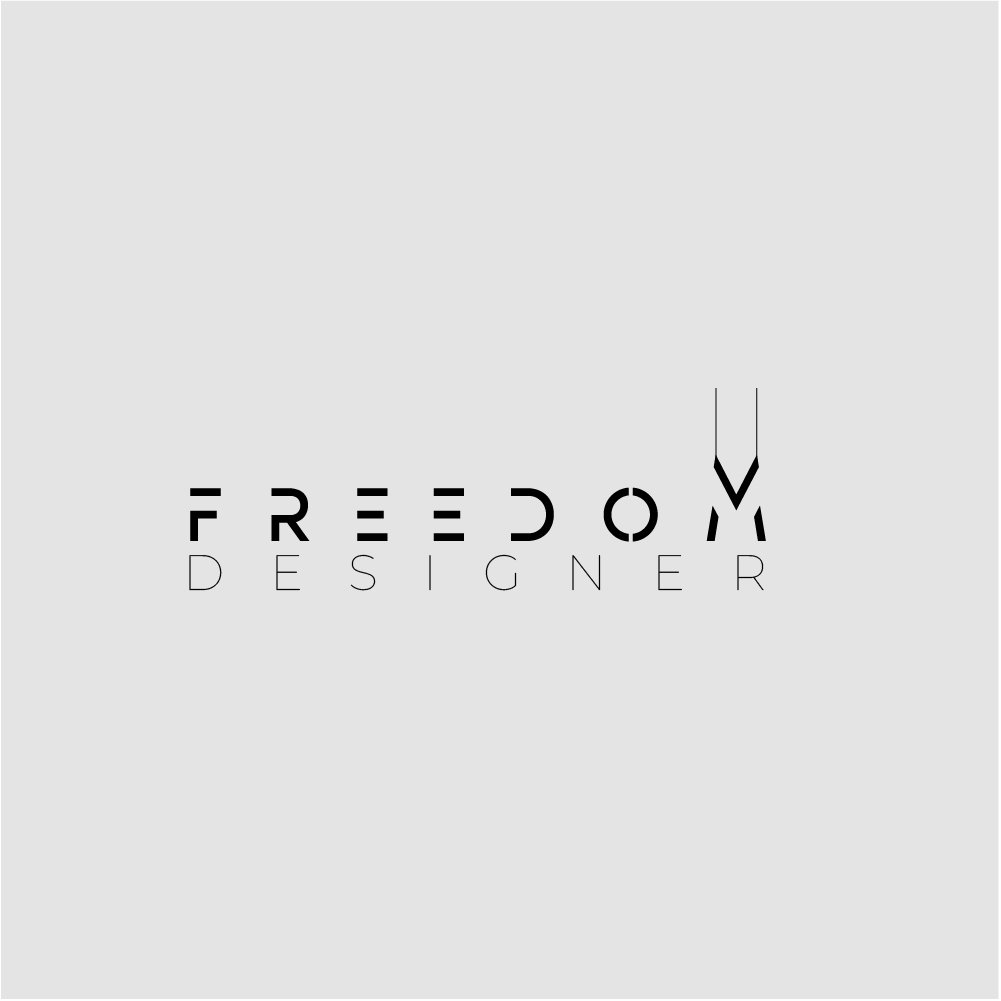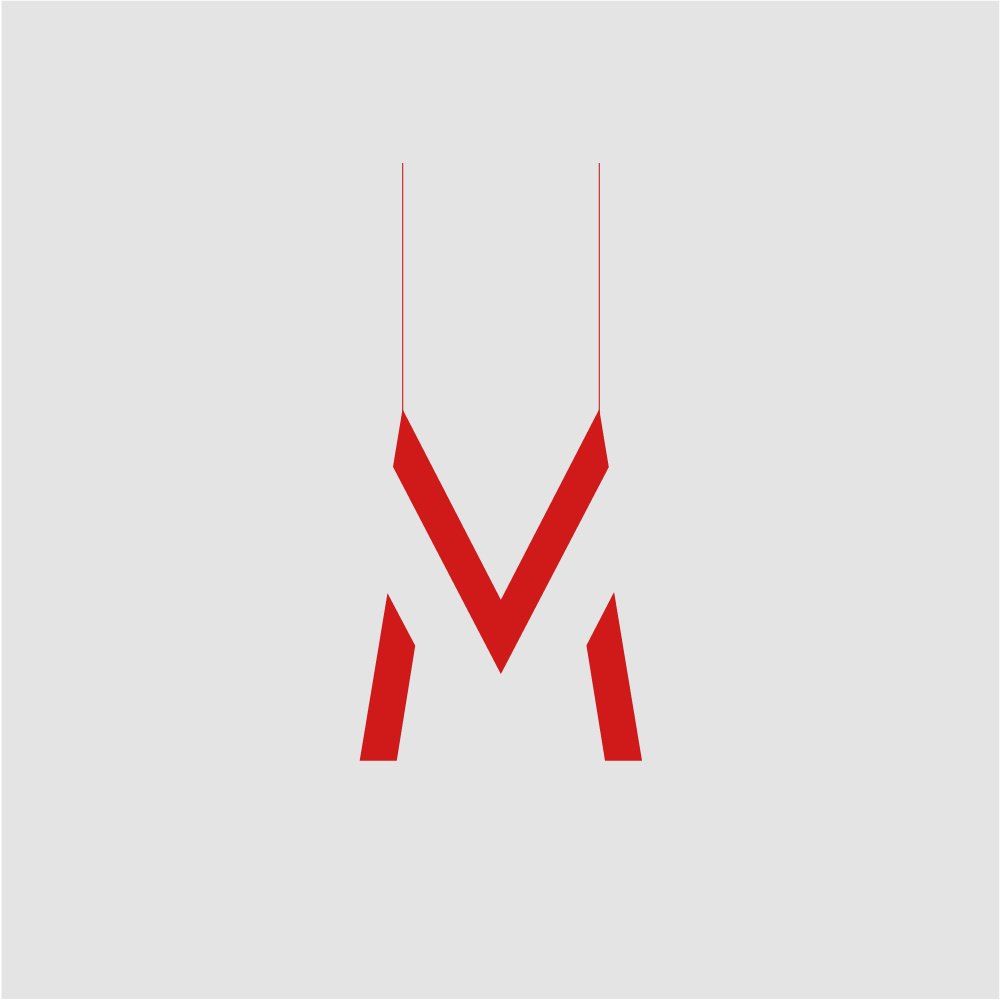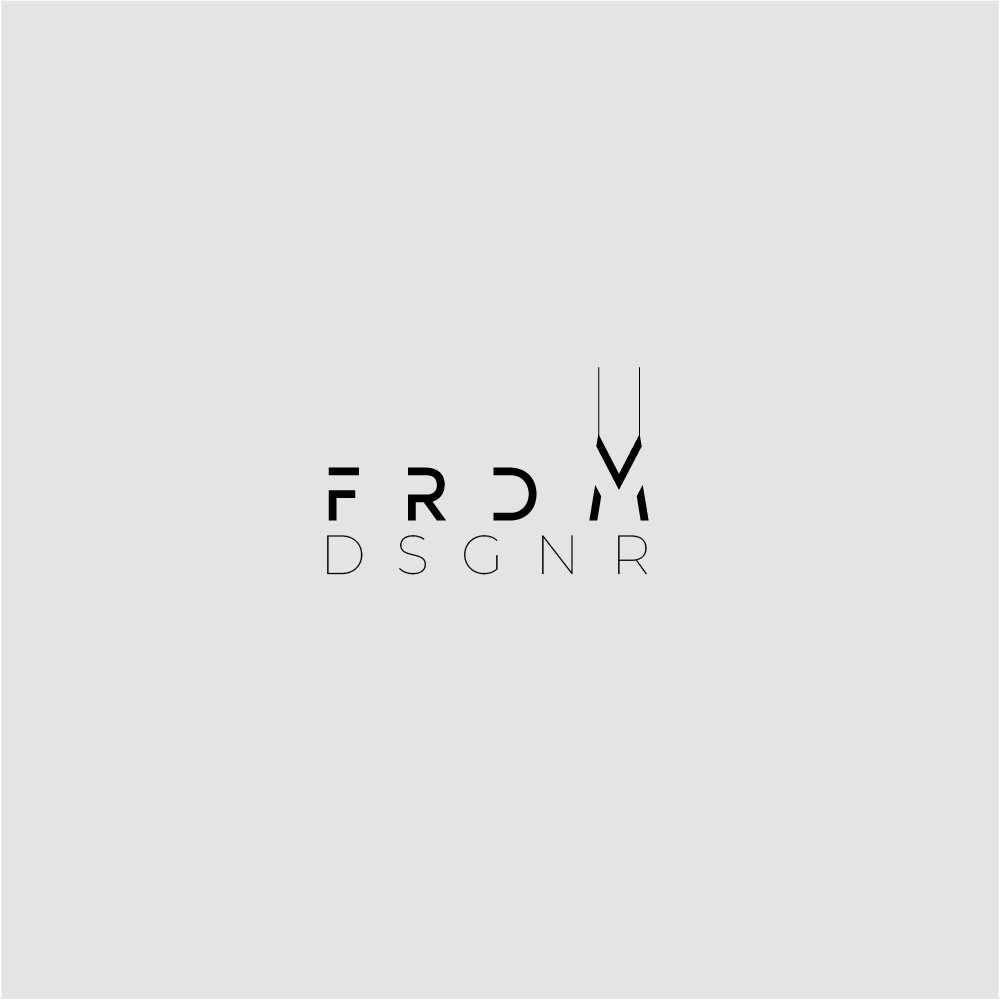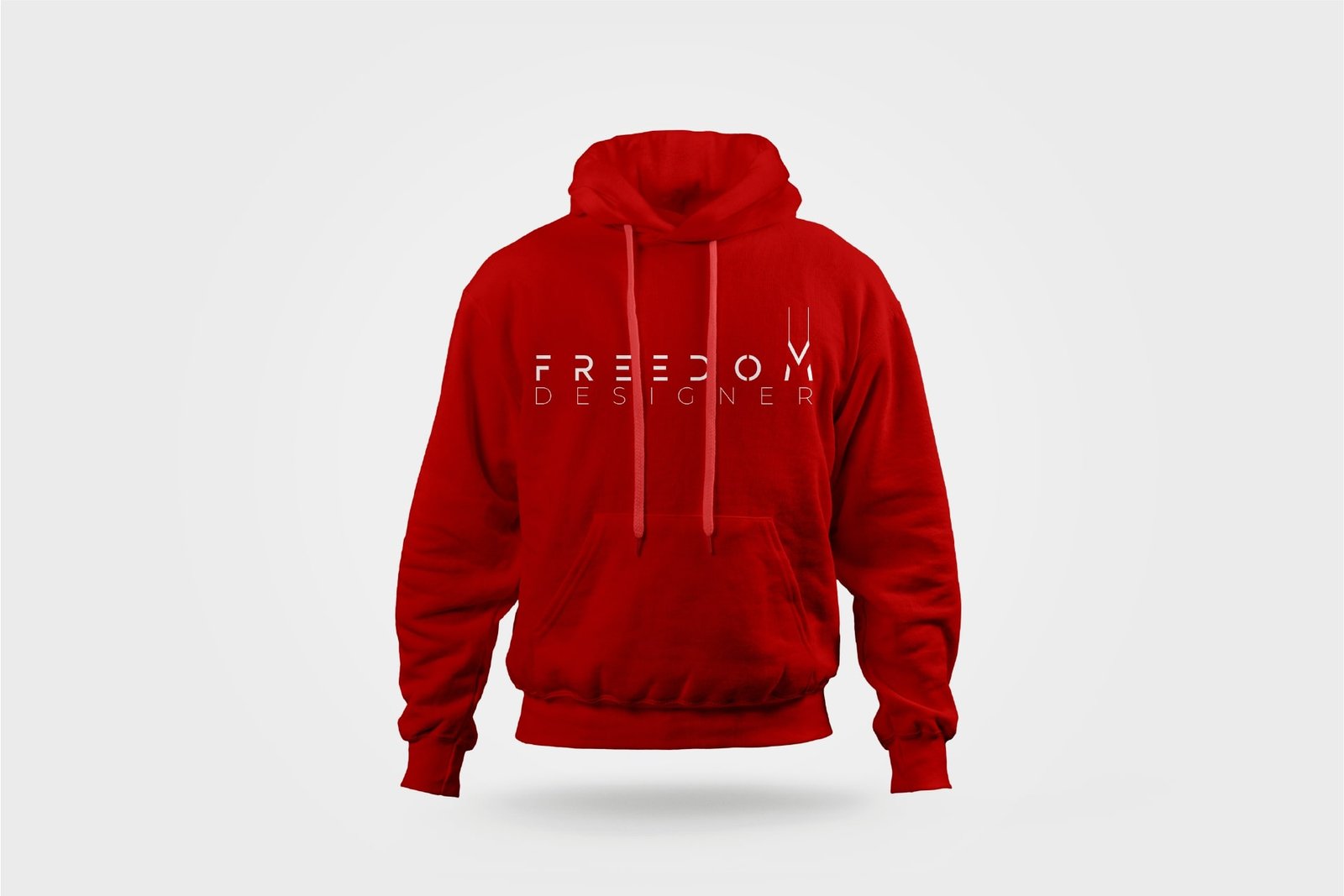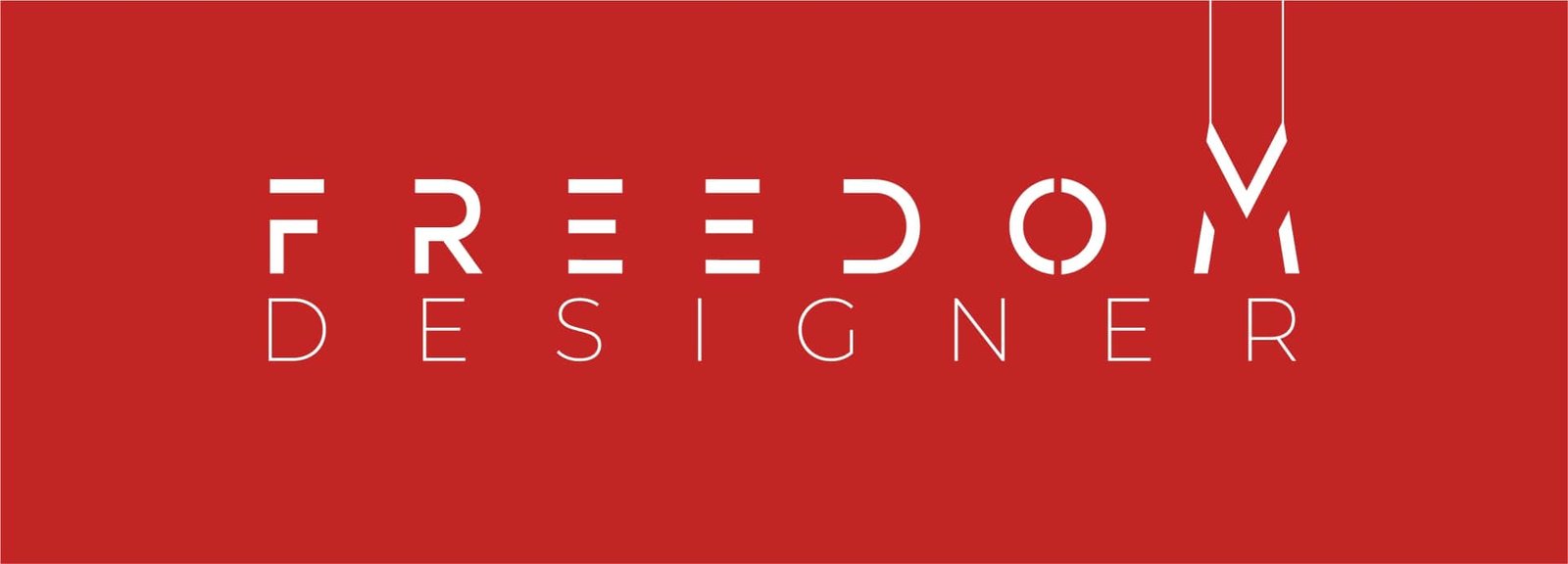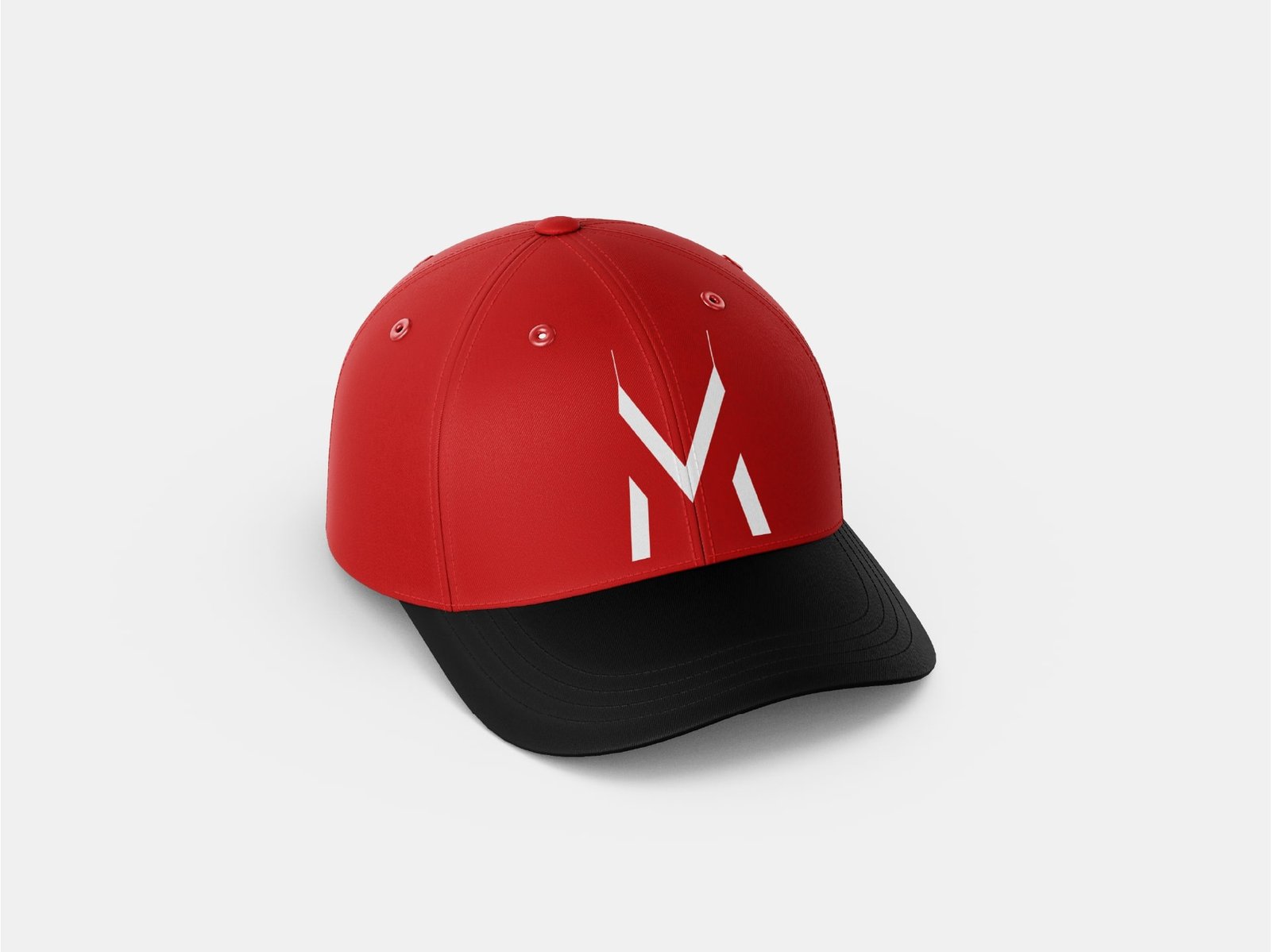
Freedom Designer
A minimal, merch-first identity for a creator apparel line. We built a modular set: the full “FREEDOM DESIGNER”, the compact “FRDM DSGNR”, and a crisp monogram- all strong on red, black, and white, and clear from avatar to hoodie.
Freedom Designer cap with monogram
Freedom Designer wordmark and grid details
the Challenge
Create an identity that reads instantly on cloth and on screen, with three tiers of use: full “FREEDOM DESIGNER”, compact “FRDM DSGNR”, and a tiny-space monogram.
• - Ultra-minimal forms must stay legible at small sizes.
• - Work in single-color print and embroidery.
• - Scale across caps, hoodies, and social avatars.
the Process
We designed from a strict grid and tested against real production limits.
• - Custom letterforms for “FREEDOM DESIGNER”.
• - “FRDM DSGNR” short form derived from the same geometry.
• - Monogram built from precise cuts and mirrored angles.
• - Print/embroidery tests to lock stroke weights and spacing.
the Refinement
Micro-adjusted curves, counters, and end-cuts for sharp reading and warmth.
• - Tuned kerning and rhythm across the wordmarks.
• - Pared down details for maximum recognition.
the Outcome
A crisp, merch-ready identity that feels engineered yet friendly—instantly recognizable whether it says “FREEDOM DESIGNER,” “FRDM DSGNR,” or just the monogram.
Naming system: Use Freedom Designer by default.
Use FRDM DSGNR where space is tight (avatars, tags, small merch).
Reserve the monogram for micro spaces or single-color embroidery.
Brandmark
Geometry that reads in one glance.
Freedom Designer monogram construction